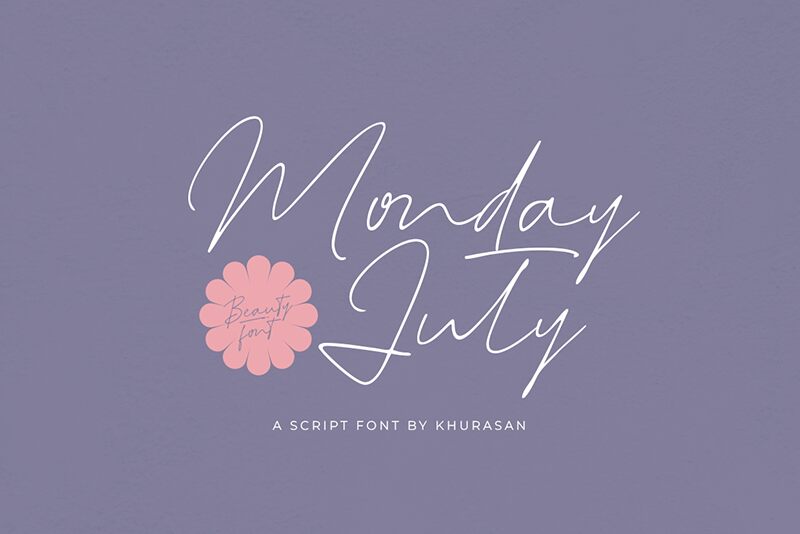
Monday July, the latest font creation from the talented Khurasan, is the perfect choice for any project that requires a unique and personalized touch. With its extra-light weight and beautifully crafted handwritten style, this font is ideal for greeting cards, social media graphics, invitations, and even branding materials. Its airy and delicate strokes create a sense of elegance while maintaining a playful charm. Monday July adds an authentic human touch to any design project, making it perfect for those who want to stand out amongst the sea of generic fonts. Give your designs a personal flair with Monday July today!